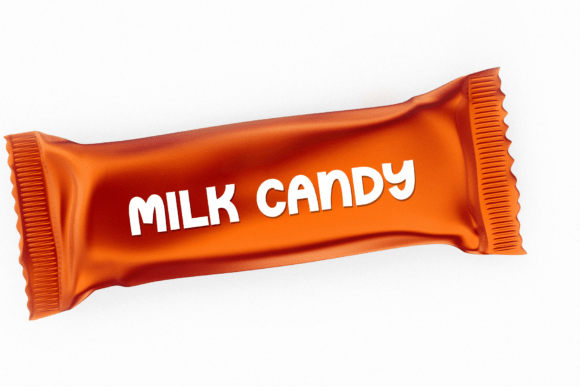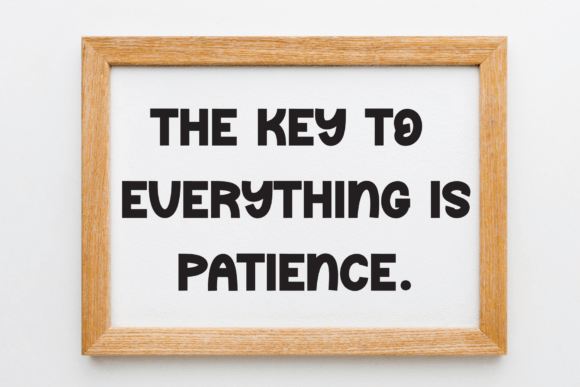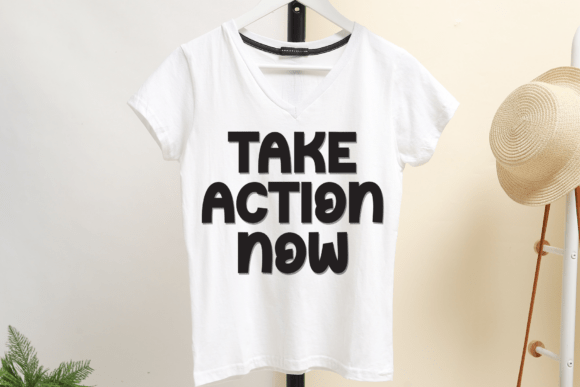
Introduction to Great Perform Font
Great Perform is a neat and casual display font that blends clarity with a relaxed, approachable vibe.
Its clean lines and friendly letterforms make it perfect for headlines, posters, packaging, and branding that aims to feel modern yet laid-back With a balanced structure and playful energy, it brings personality to any project without overwhelming the message.